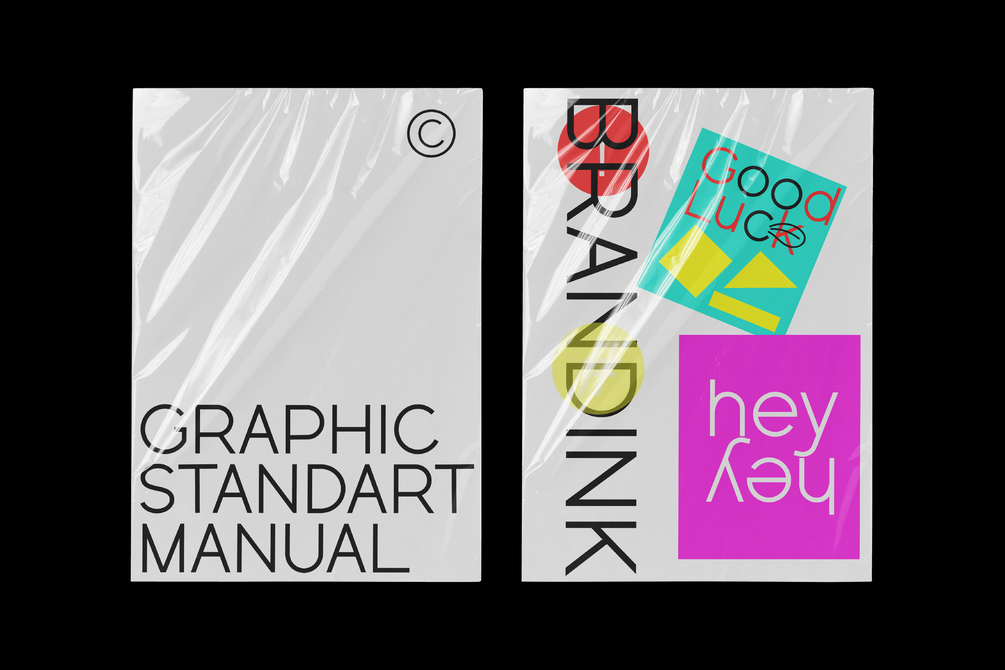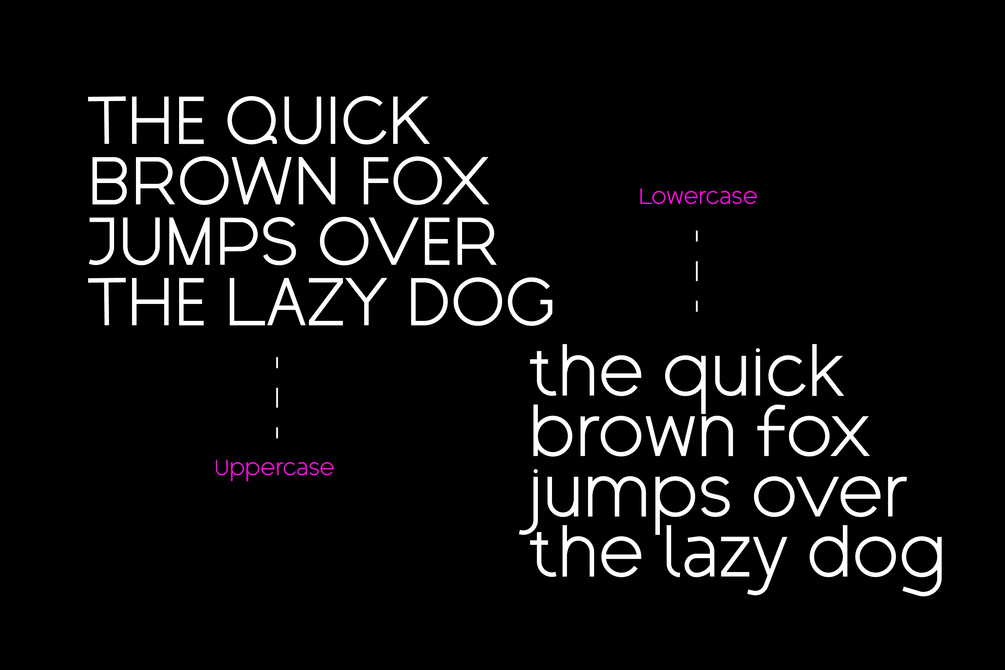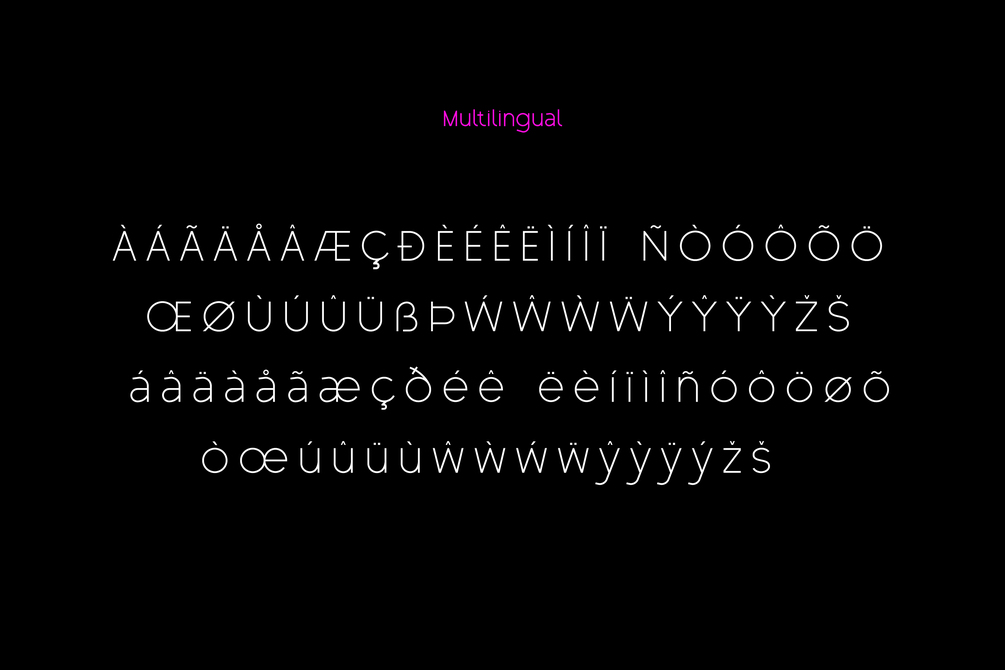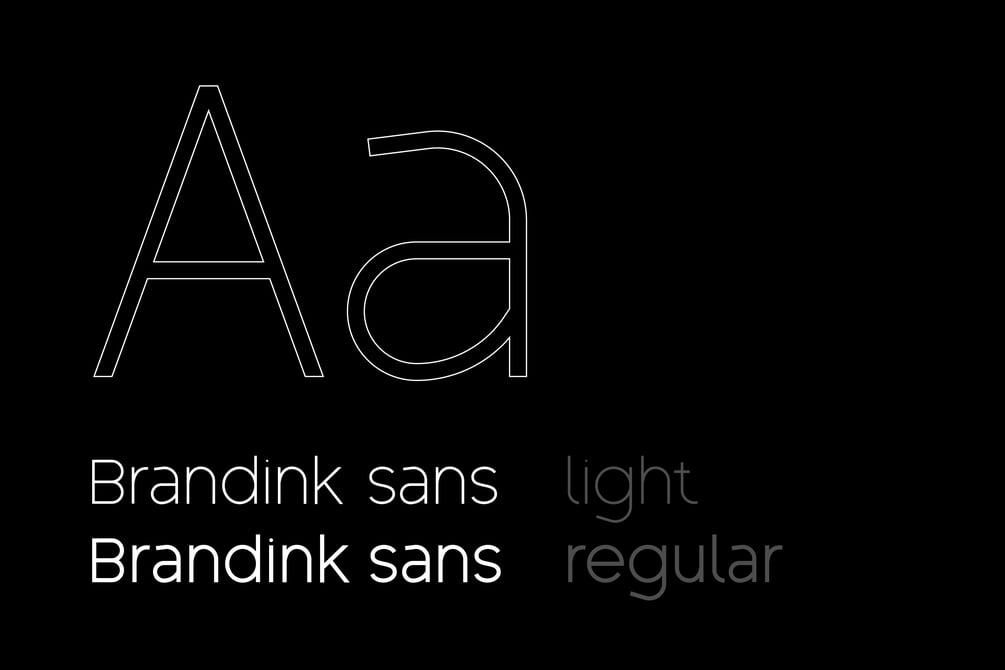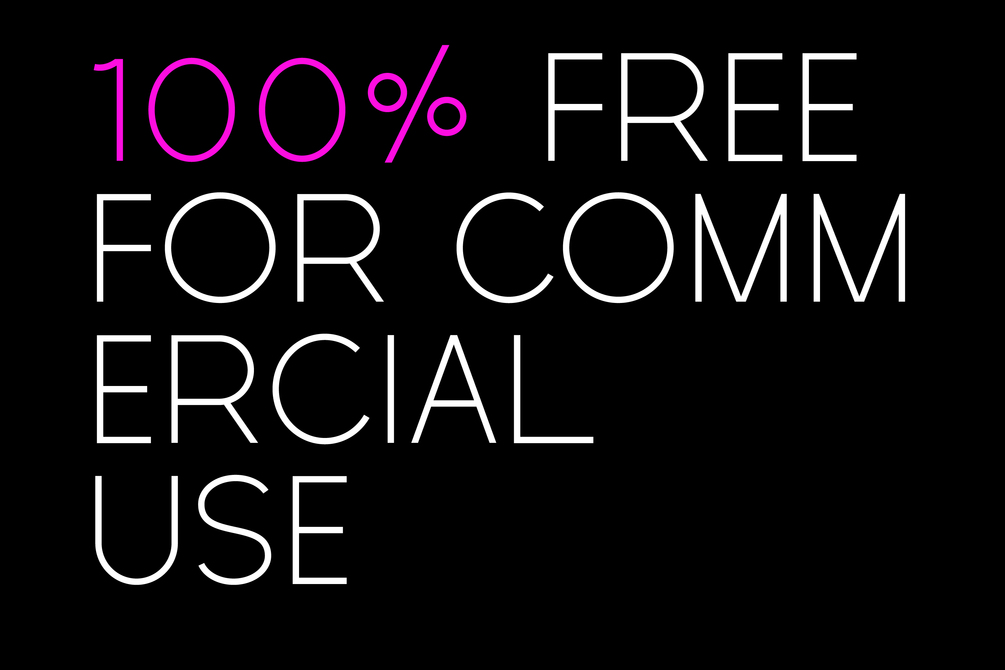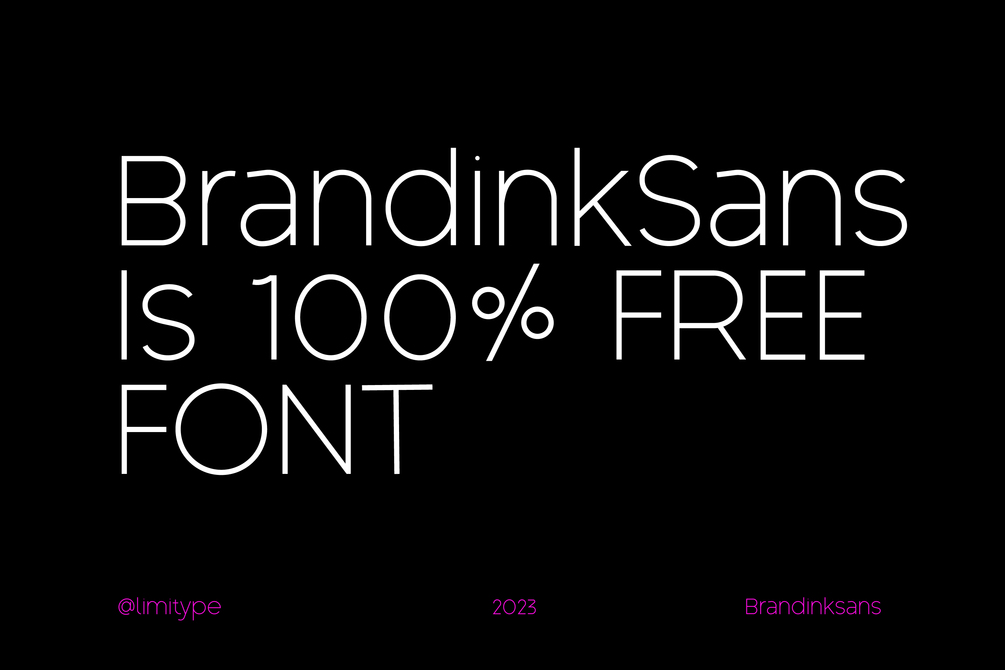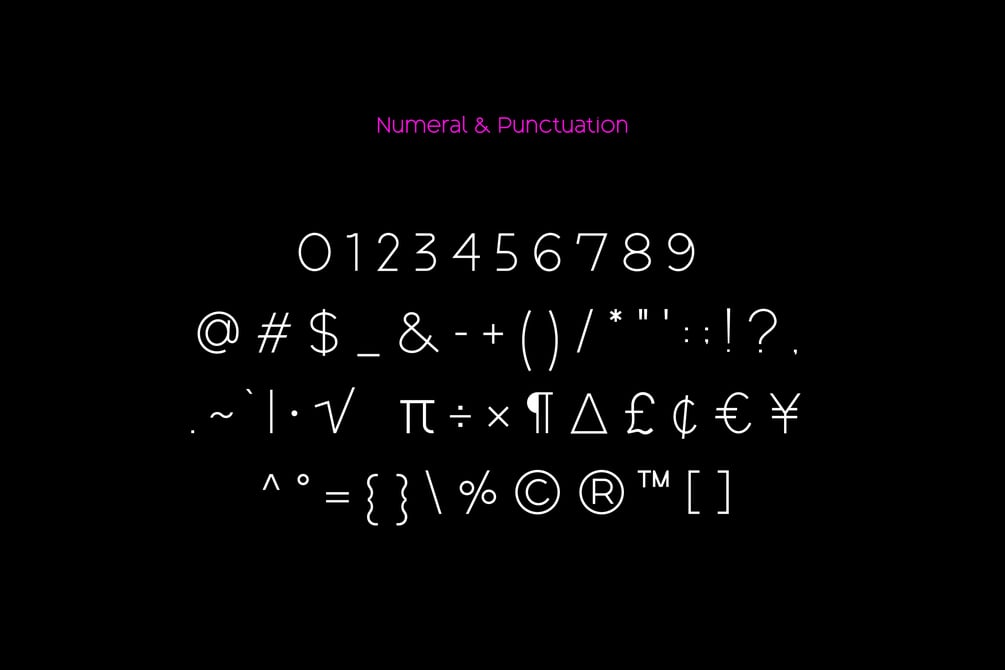
Brandink Sans - 100% Free Font
Brandink sans is a sans serif font that we experimented with in 2021 which we made for logotype, branding, etc. that you can use or modify for your projects freely.